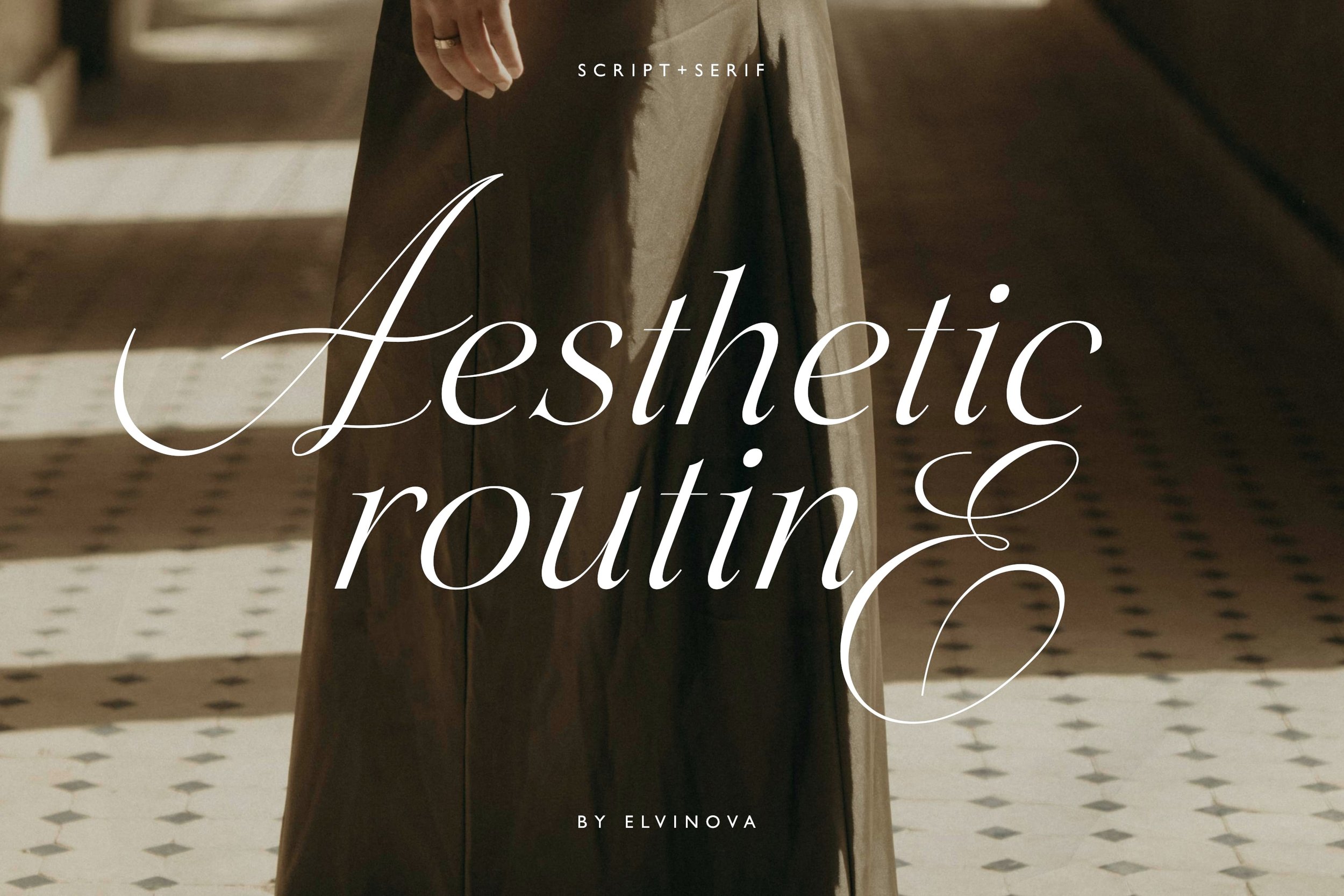
Introducing Aesthetic Script, an exquisite handwritten font duo that captures the essence of elegance in every stroke. Ideal for personalized branding, wedding invitations, and bespoke stationery, this script font exudes charm and sophistication. Embrace the artistry of Aesthetic Script to add a bespoke touch to your designs. With its fluid curves and refined grace, this font duo is the epitome of script elegance, perfect for creating a unique and stylish impression.
- Contains: Uppercase and lowercase letters, numerals, punctuation marks
- Features: Multilingual support (English, German, French, Spanish, Italian, Danish, Finnish, Portuguese, Swedish, Norwegian, Dutch, Indonesian, Luxembourgish, Icelandic, Cornish, Hungarian, Filipino, Romansh, Slovenian, Estonian, Polish, Turkish)